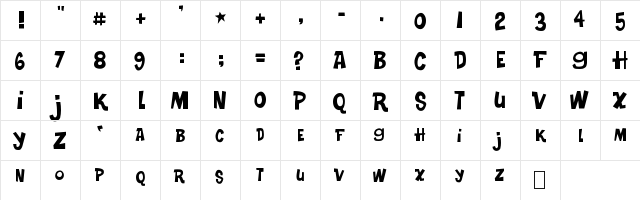
Turkey Sandwich Regular
Design Context for Turkey Sandwich Typeface
Turkey Sandwich is a composed and adaptable typeface that performs quietly and consistently across a wide range of design contexts.